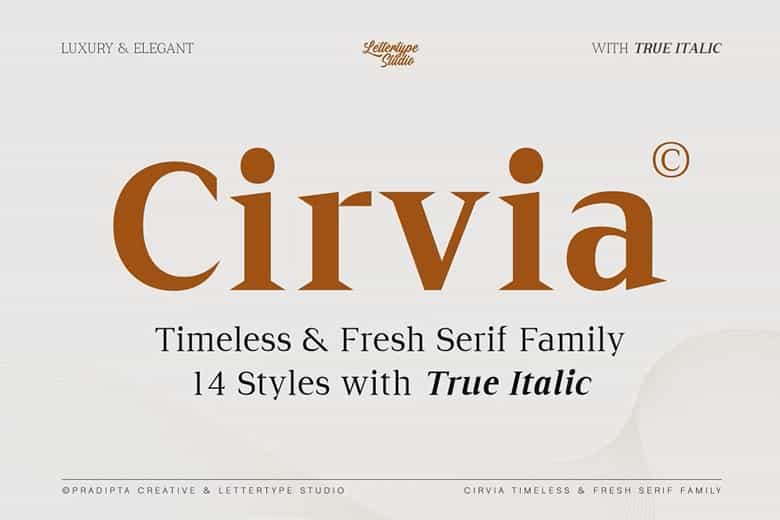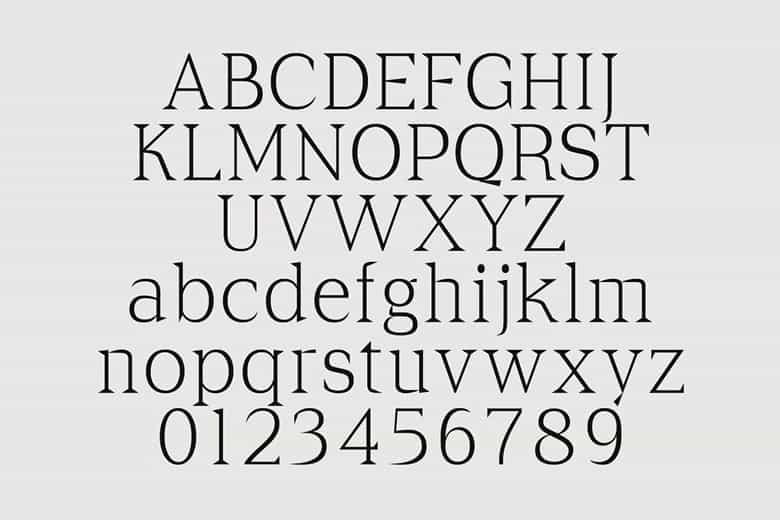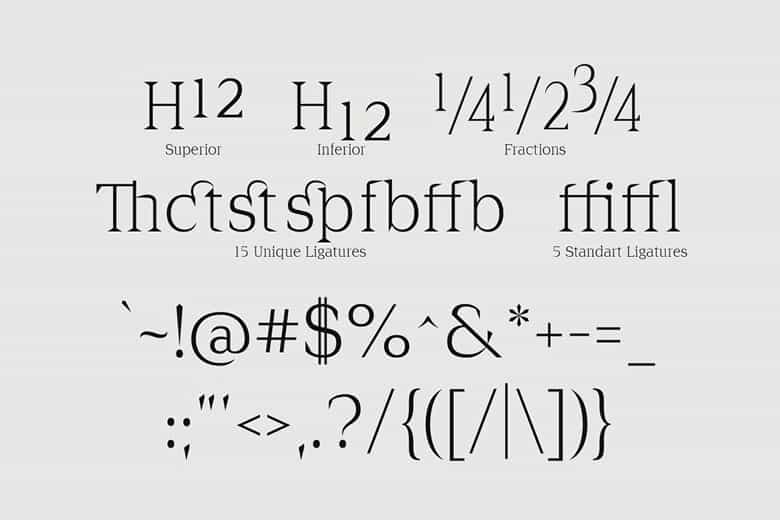
Cirvia is an eternal serif font family that rearranges the concept of elegance in a contemporary manner. A timelessly elegant typeface, but with a modern, clean finish, it will provide 14 finely tuned styles, which span the Gamut boutique Thin to the powerful Black, with authentic italics to match. Cirvia includes 15 alternates ligatures and 5 regular ligatures.